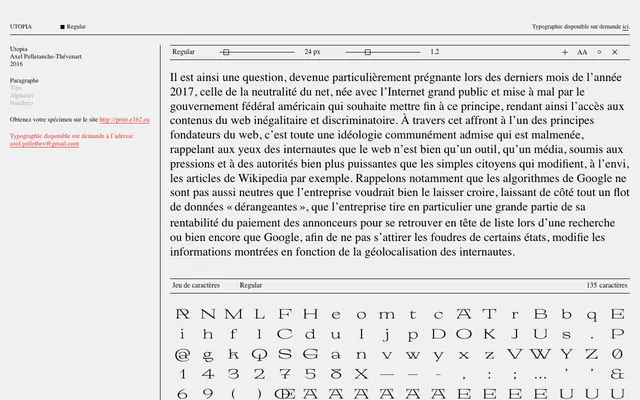
Utopia
E162 · Axel Pelletanche-Thévenart · 2016
A single-weight text serif by Axel Pelletanche-Thévenart, released in 2016 through the small French foundry E162 and available on request.
Released in 2016, this roman serif exists as a single Regular weight with a character set of 135 glyphs. Designed by Axel Pelletanche-Thévenart and distributed through E162, it is available only by direct enquiry rather than through a conventional retail channel. The restrained scope suits careful editorial or typographic research contexts rather than broad commercial deployment.
The sample text and specimen imagery suggest a classical text serif with regularised proportions typical of transitional designs; the name Utopia and its single upright roman weight reinforce a restrained, text-oriented disposition.